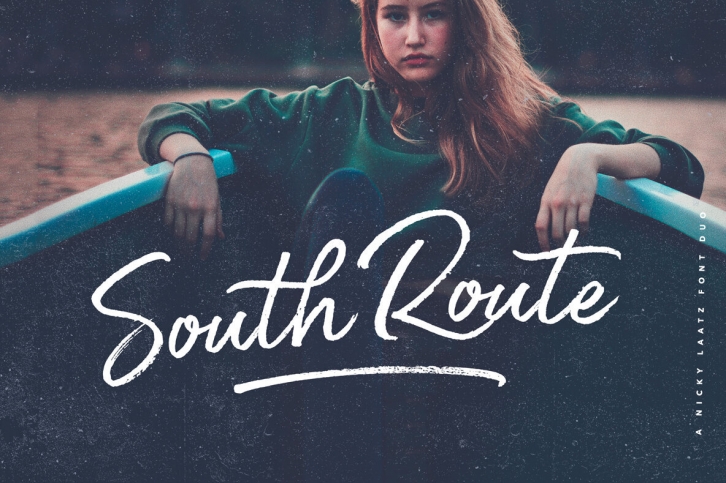
Add a stylish punch to your designs with the bold new font duo South Route. Consisting of a textured All-caps sans serif, and a bold & sassy fashionable script, South Route offers you a multitude of possibilities in your professional type design projects.
The Script comes with two sets of lowercase alternates - pick the letters that looks best in your type design - and switch between different letters in the same word to create a more authentic look.
Bring your designs to life with a set of 26 extra dry marker swashes and gritty textures are found in a handy Extras font.
Together or apart - South Route fonts are perfect for creating a statement in your designs.